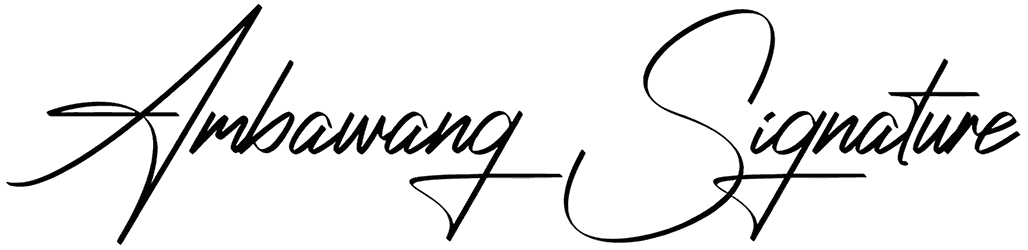
Ambawang Signature Font
If you are in a place that needs a complex tone, Ambawang Signature is the best option for you. This signature font, which has handwritten letters, can create a friendly and human atmosphere in the background of any design.
So if you want to convey your message in a warm yet masterful tone, keep this handwritten font in your treasure. Ambawang Signature can help you design your book covers, love letters, and wedding cards in a distinctive way.
Designed by: Shena Sejati